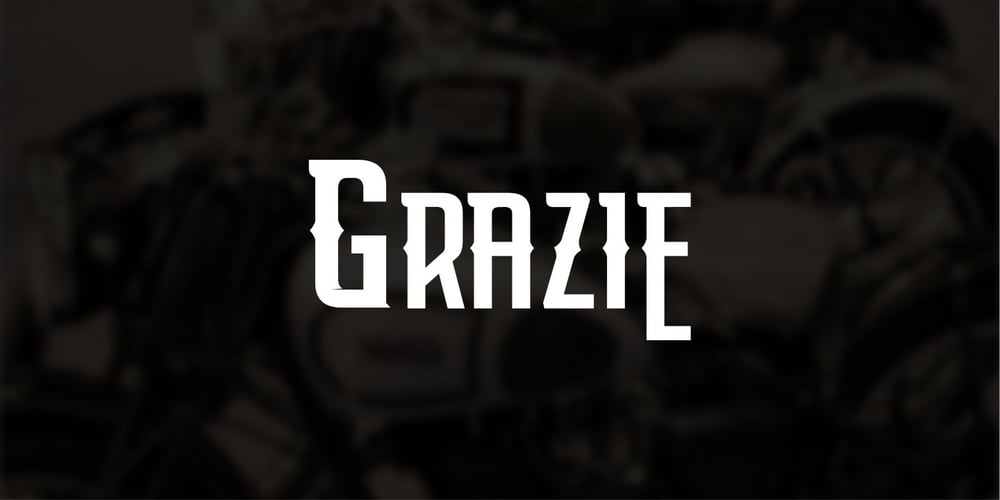
Moge Font Family was designed by Galih Eko Nurcahyo and published by BanyumiliStudio. Moge contains 1 styles and family package options. Introducing MOGE: power, retro and modern! Perpendicular and thick forms create strength in your designs. The shapes look retro, but still features modern elements. MOGE is very good if used on: Car / Motorcycle Repair Shop, Barbershop Logo, Brand Logo, and various products that require a touch of strength.